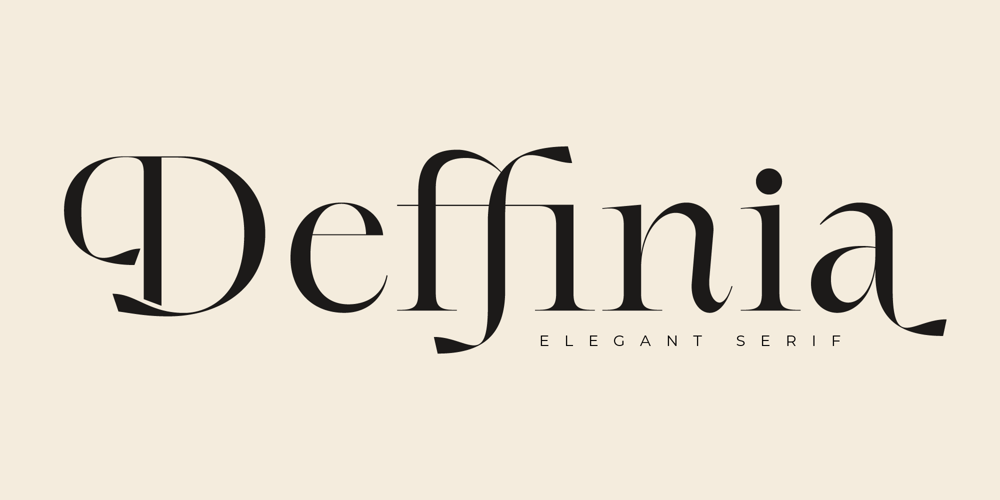
Deffinia Font Family was designed by Mujahid Al Fikri and published by Glyphofik Type. Deffinia contains 1 styles and family package options. Deffinia is a modern serif font that blends timeless elegance with bold, contemporary design. Its high-contrast strokes and graceful curves exude sophistication, making it perfect for luxury branding and high-end editorial design. Ideal for logos, headlines, and impactful visual statements, Deffinia captures attention with its refined structure and dynamic flair. Whether in fashion, beauty, or minimalist design, this typeface adds an air of confidence and creativity, elevating any project with its sleek and stylish letterforms.